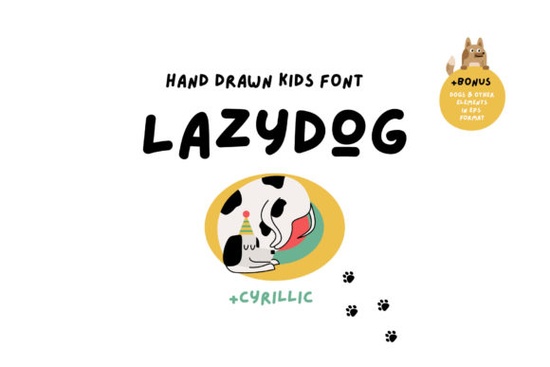
If you're looking for a handwritten font that feels warm, approachable, and full of personality, Lazydog Font is worth a closer look. Designed with a natural, slightly uneven stroke that mimics real handwriting, it brings a relaxed charm to everything from greeting cards to branding projects. Whether you're a small business owner creating product labels, a crafter designing vinyl decals, or a print-on-demand seller building mockups, Lazydog adds a human touch without feeling overly polished or stiff.
What makes Lazydog stand out is how effortlessly it blends into casual, friendly designs. It’s not trying to be formal it’s meant to feel like a note passed between friends. That authenticity resonates well in today’s market, where customers often respond more warmly to handmade aesthetics than sterile, corporate typography.
When should you use Lazydog Font?
This font shines in contexts that call for warmth and informality:
- Greeting cards and invitations – especially for birthdays, baby showers, or casual gatherings
- Handmade product packaging – think soap labels, candle wraps, or bakery tags
- Social media graphics – quotes, announcements, or behind-the-scenes posts
- T-shirt and tote bag designs – paired with simple illustrations or standalone phrases
- Personalized gifts – mugs, journals, or wall art with names or short messages
Because Lazydog has a consistent rhythm despite its organic appearance, it remains readable even at smaller sizes though it’s always best used for headlines or short phrases rather than body text.
How does it compare to other script fonts?
Not all handwritten fonts strike the same balance between legibility and character. For example, if you’ve tried Kindred Font, you’ll notice it leans more elegant and flowing, great for wedding stationery. In contrast, Lazydog keeps things grounded and cheerful.
Similarly, Letterland Font offers bouncy, playful letterforms ideal for kids’ designs, while Lazydog feels more universally friendly suitable for both adults and children without leaning too juvenile.
If you’re drawn to whimsical but tidy scripts, you might also enjoy Front Picture Font, which has a clean, illustrated quality. Or consider Maybe Tomorrow Font for something dreamier and more romantic. And for those moments when you need refined beauty over casual charm, Beautiful Fonts collection offers alternatives with graceful swashes and delicate curves.
Lazydog doesn’t try to do everything it excels at one thing: delivering sincerity through simplicity.
Tips for using Lazydog effectively
To get the most out of this font, keep these practical ideas in mind:
- Pair it wisely. Combine Lazydog with a clean sans-serif (like Montserrat or Open Sans) to create contrast and improve readability.
- Avoid over-styling. Since the font already has personality, skip heavy effects like outlines or drop shadows unless your design specifically calls for them.
- Use ample spacing. Give words room to breathe tight kerning can make the natural irregularities feel cluttered.
- Test in context. Always preview your design as it would appear in real life (e.g., on a mockup T-shirt or printed label) before finalizing.
Remember, the goal isn’t just to use a trendy font it’s to communicate a feeling. Lazydog works because it feels genuine, not because it’s flashy.
Who is this font right for?
Creative hobbyists who make DIY home decor will appreciate how Lazydog adds a personal signature to wood signs or framed quotes. Print-on-demand sellers can use it to craft relatable apparel slogans (“Coffee First,” “Nap Enthusiast”) that feel authentic rather than mass-produced. Small businesses especially in wellness, food, or lifestyle niches can incorporate it into logo accents or promotional materials to appear more approachable.
Even professional designers sometimes need a font that says “I made this with care” without shouting. Lazydog whispers it just right.